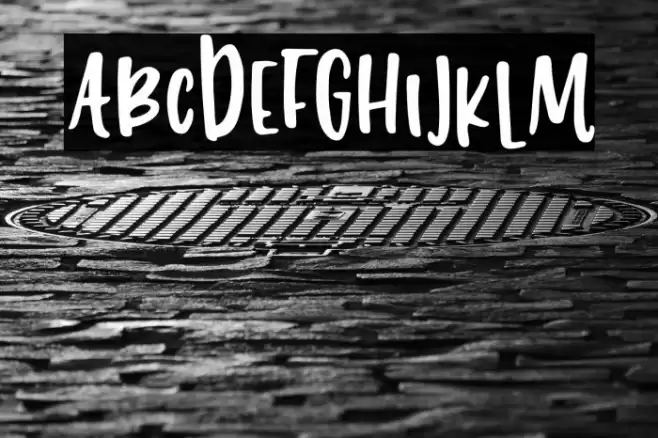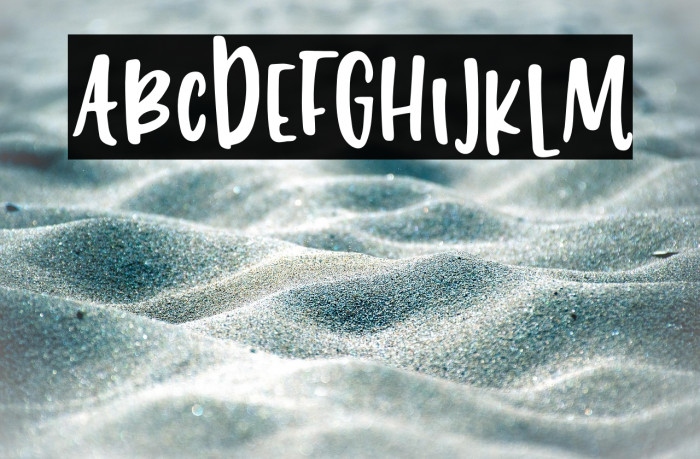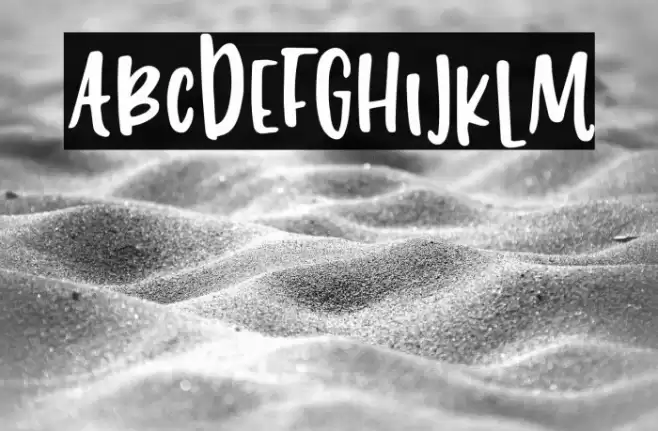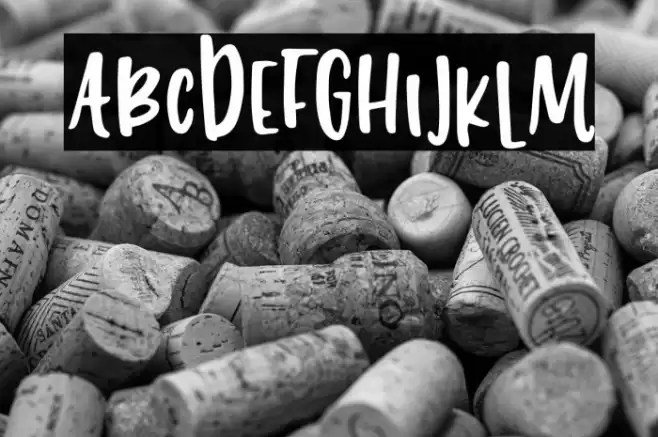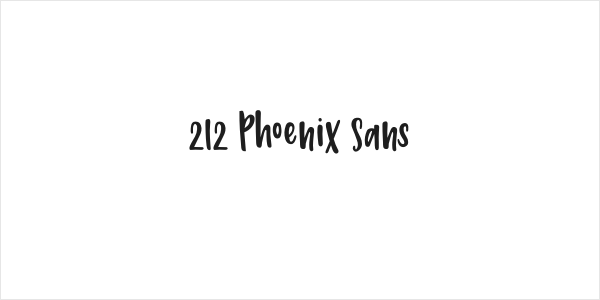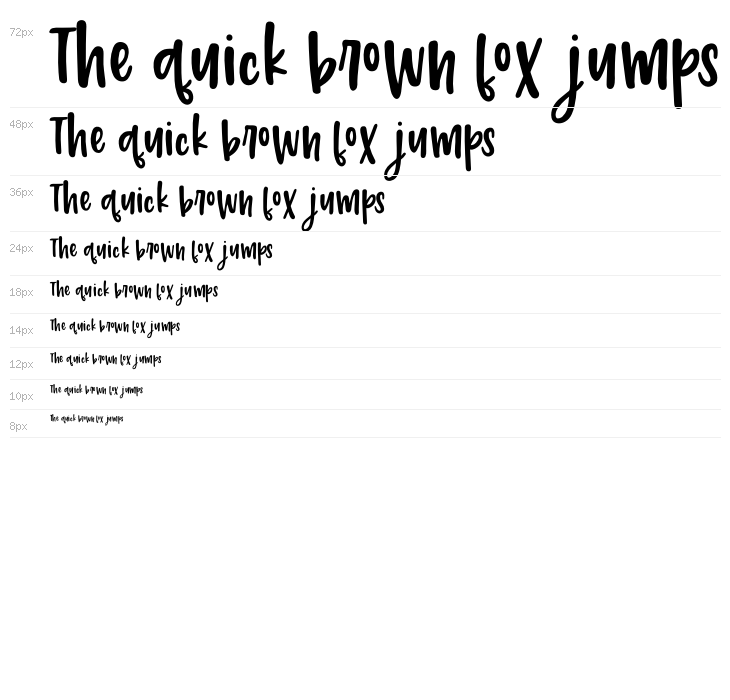
212 Phoenix Sans Font
212 Phoenix Sans Description
This font features a playful and dynamic handwritten style, characterized by its bold and flowing letterforms. The uppercase and lowercase letters exhibit a consistent rhythm, with slightly exaggerated curves and a casual, friendly appearance. The numbers maintain the same lively aesthetic, ensuring uniformity across all characters. Special characters are integrated seamlessly, enhancing the font's versatility. This font's design is perfect for projects that require a personal touch, combining readability with a unique flair.
Proposed ProjectsIdeal for greeting cards, invitations, posters, and branding materials that seek a personal and approachable feel.